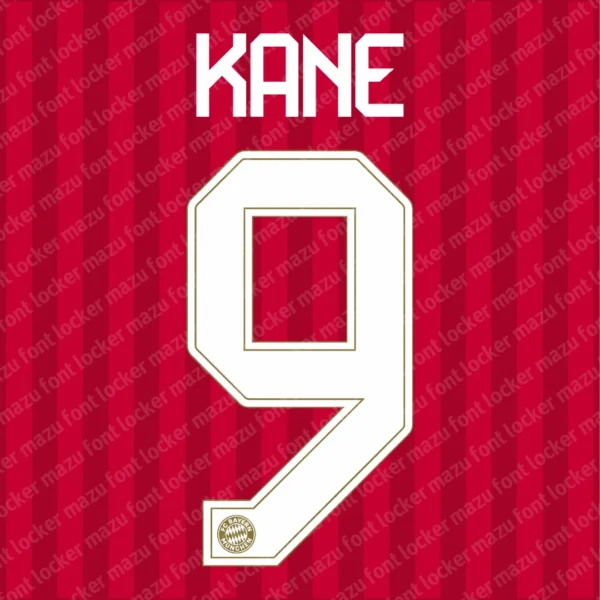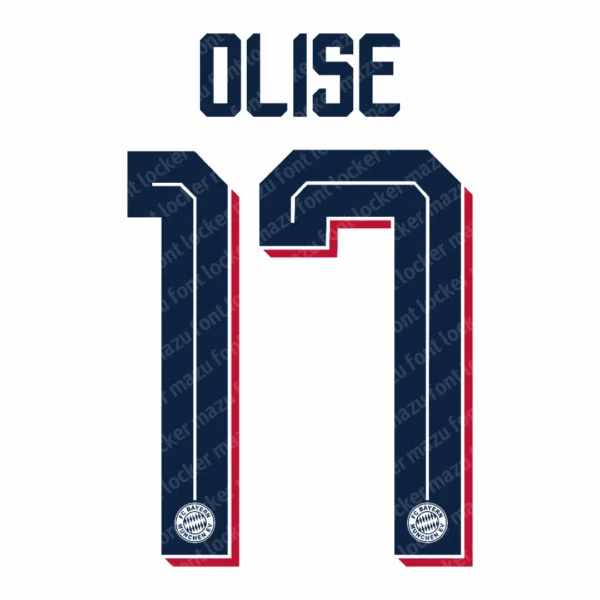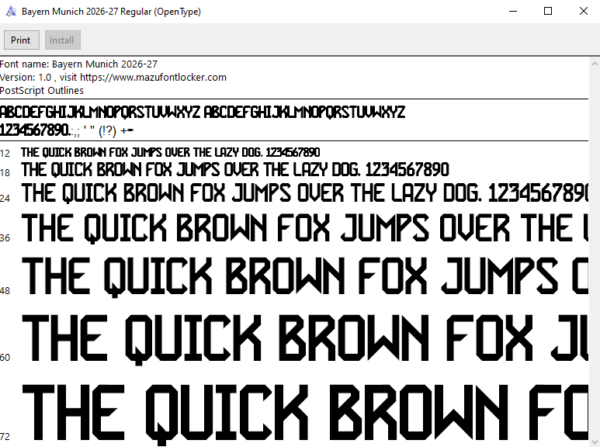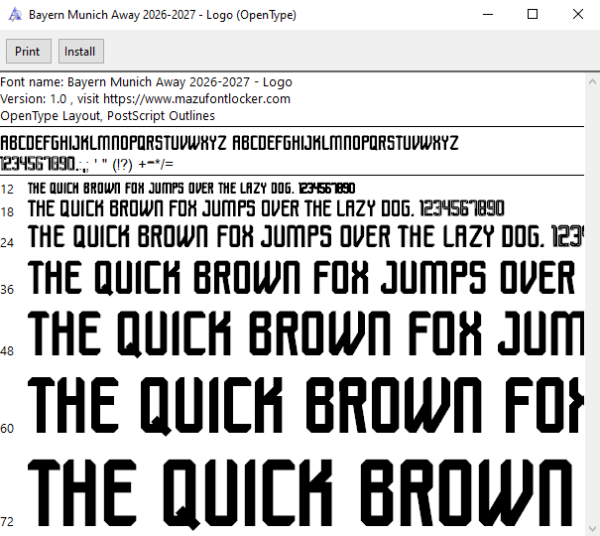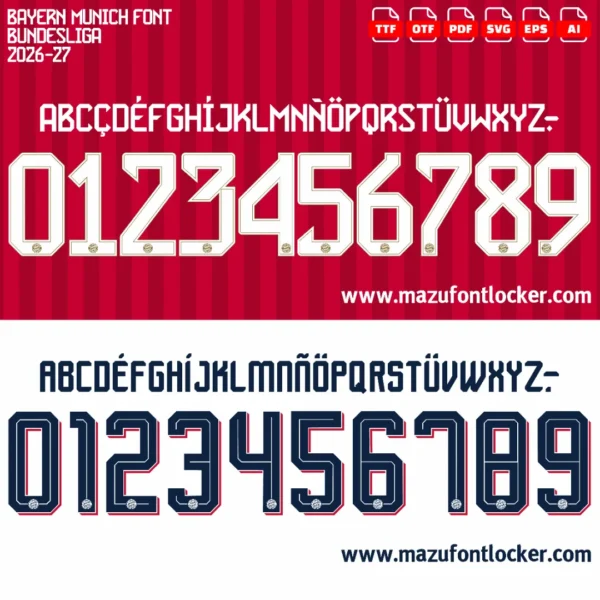
Bayern Munich 2026-2027 Font Vector – Epic Die Roten Bavarian Glory Masterpiece
This font captures the commanding, razor-sharp, thunderous, and precision-engineered lettering that perfectly embodies Bayern Munich’s iconic club identity, proud German heritage, never-say-die mentality, and raw football power — delivering unmatched authenticity, premium quality, explosive energy, and elite Bundesliga & European dominance for professional jersey mockups, dynamic football graphics, premium sports branding, passionate fan creations, and high-end design projects.
Bayern Munich 2026-2027 Font Vector – Iconic Red & White Typeface
The Bayern Munich 2026-2027 Font Vector is a premium typeface that accurately recreates the official match lettering worn by Bayern Munich during the 2026-2027 season. This high-quality vector font kit captures the bold, clean, and instantly recognizable typography that perfectly complements the club’s iconic red and white identity.
Designed for professional designers, football enthusiasts, and passionate Bayern supporters, the Bayern Munich 2026-2027 Font Vector delivers exceptional authenticity for creating realistic jersey mockups, football merchandise, social media graphics, match posters, and custom fan artwork. Every character has been carefully recreated to match the powerful and precise visual style of one of Europe’s most successful football clubs.
Why Choose Bayern Munich 2026-2027 Font Vector
This font stands out thanks to its precise vector construction and authentic club styling. Every letter and numeral has been meticulously recreated to match the official shirt lettering used throughout the 2026-2027 Bundesliga and UEFA Champions League campaigns. Whether you’re producing professional kit templates or creating eye-catching football content, the Bayern Munich 2026-2027 Font Vector delivers a genuine match-ready appearance.
The lettering featured in the Bayern Munich 2026-2027 Font Vector combines clean geometric lines with powerful modern proportions. The result is a premium and highly readable typeface that reflects Bayern Munich’s winning mentality, precision, and legendary status in European football.
- Complete uppercase A–Z alphabet and numbers 0–9 in authentic Bayern Munich 2026-2027 style
- Create authentic Bayern Munich 2026-2027 home and away jersey mockups
- Produce custom Bayern Munich-inspired merchandise and fan projects
- Includes authentic Bundesliga and UEFA Champions League badge glyph placement beneath player numbers
Bayern Munich 2026-2027 Season
The 2026-2027 season promises to be another competitive chapter for Bayern Munich as they fight for titles in the Bundesliga and UEFA Champions League. Wearing their signature red and white colors, the club continues to embody excellence, ambition, and dominance in German and European football.
The Bayern Munich 2026-2027 Font Vector is an independently designed typeface package inspired by the official shirt lettering for the 2026-2027 season. It has been carefully recreated for football enthusiasts, graphic designers, collectors, and creators producing custom jersey concepts, football artwork, and fan-made projects.